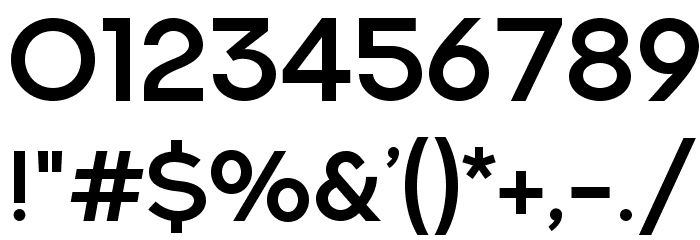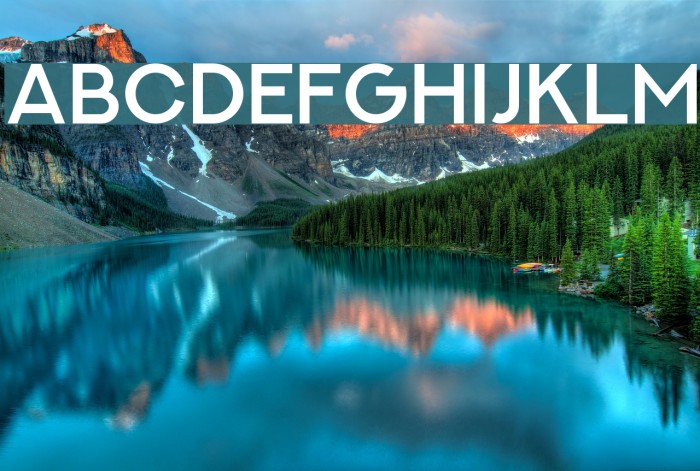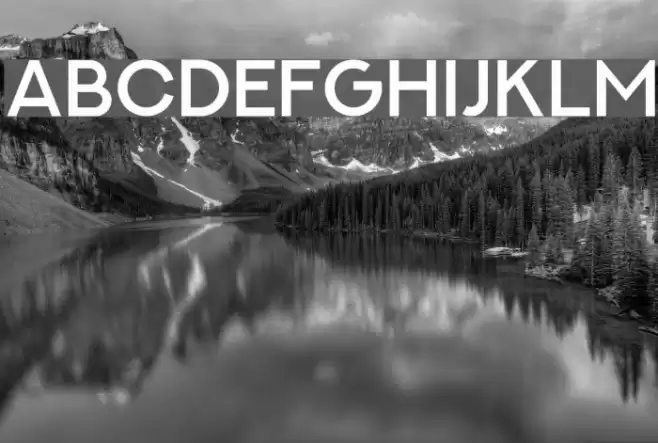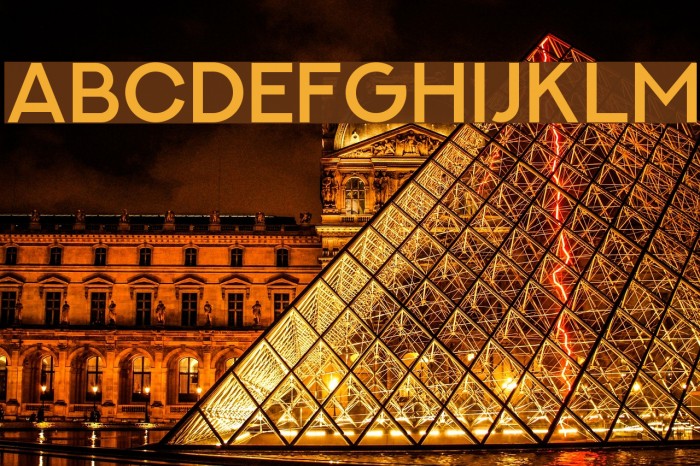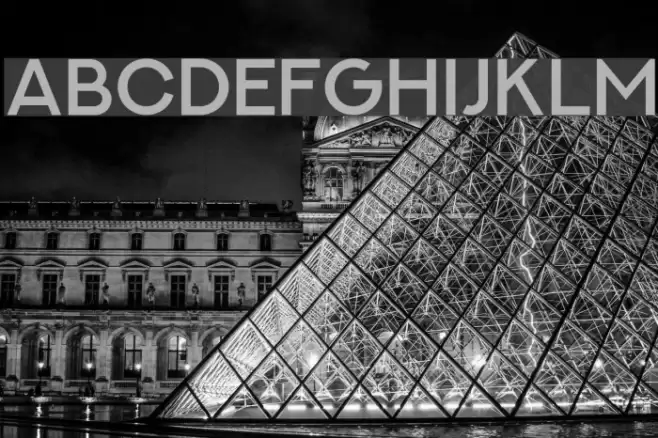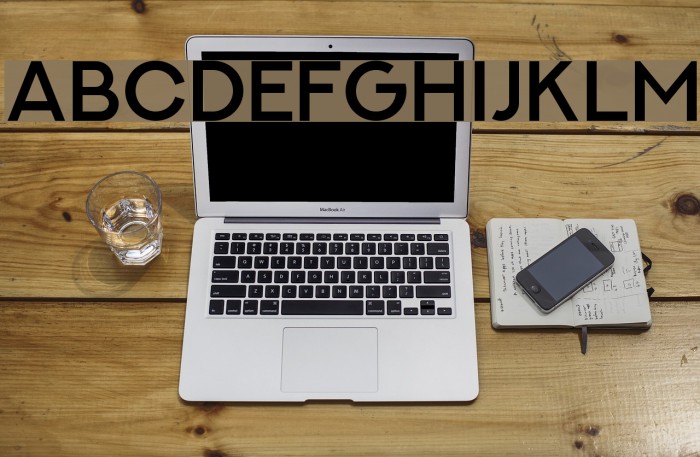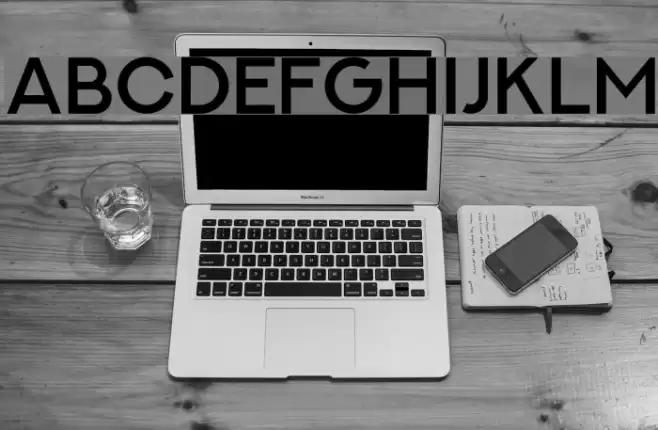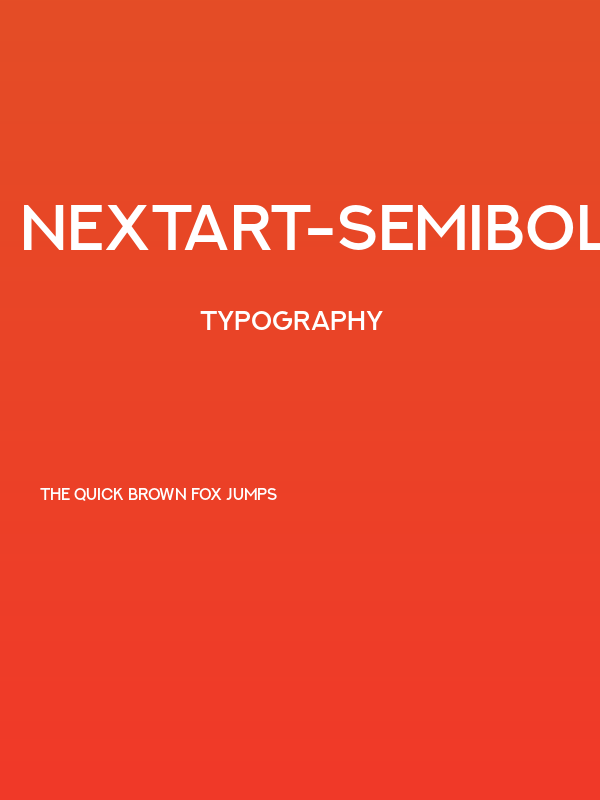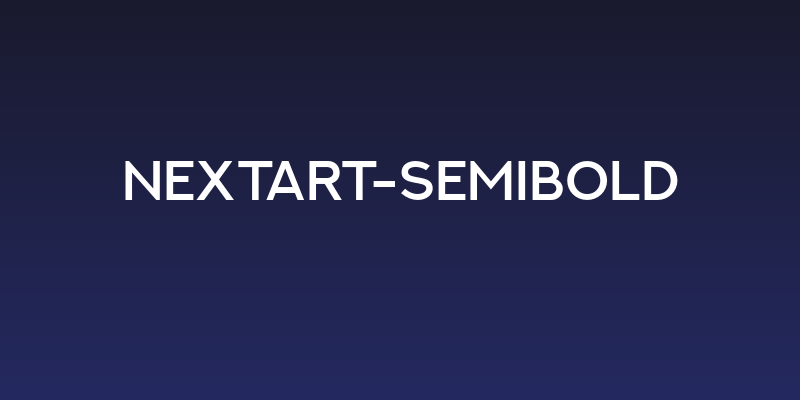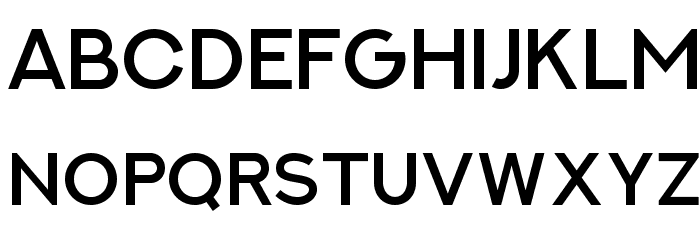
NEXTART-SemiBold Font
NEXTART-SemiBold Description
This font exhibits a clean and modern sans-serif style with a semi-bold weight. The characters are evenly spaced, providing a balanced and harmonious appearance. The uppercase and lowercase letters maintain a consistent height and width, ensuring readability and clarity. The numerals are distinct and align well with the overall design, making them suitable for various applications. Special characters are well-defined, enhancing the font's versatility. The strokes are uniform, contributing to a medium contrast that adds to its contemporary feel.